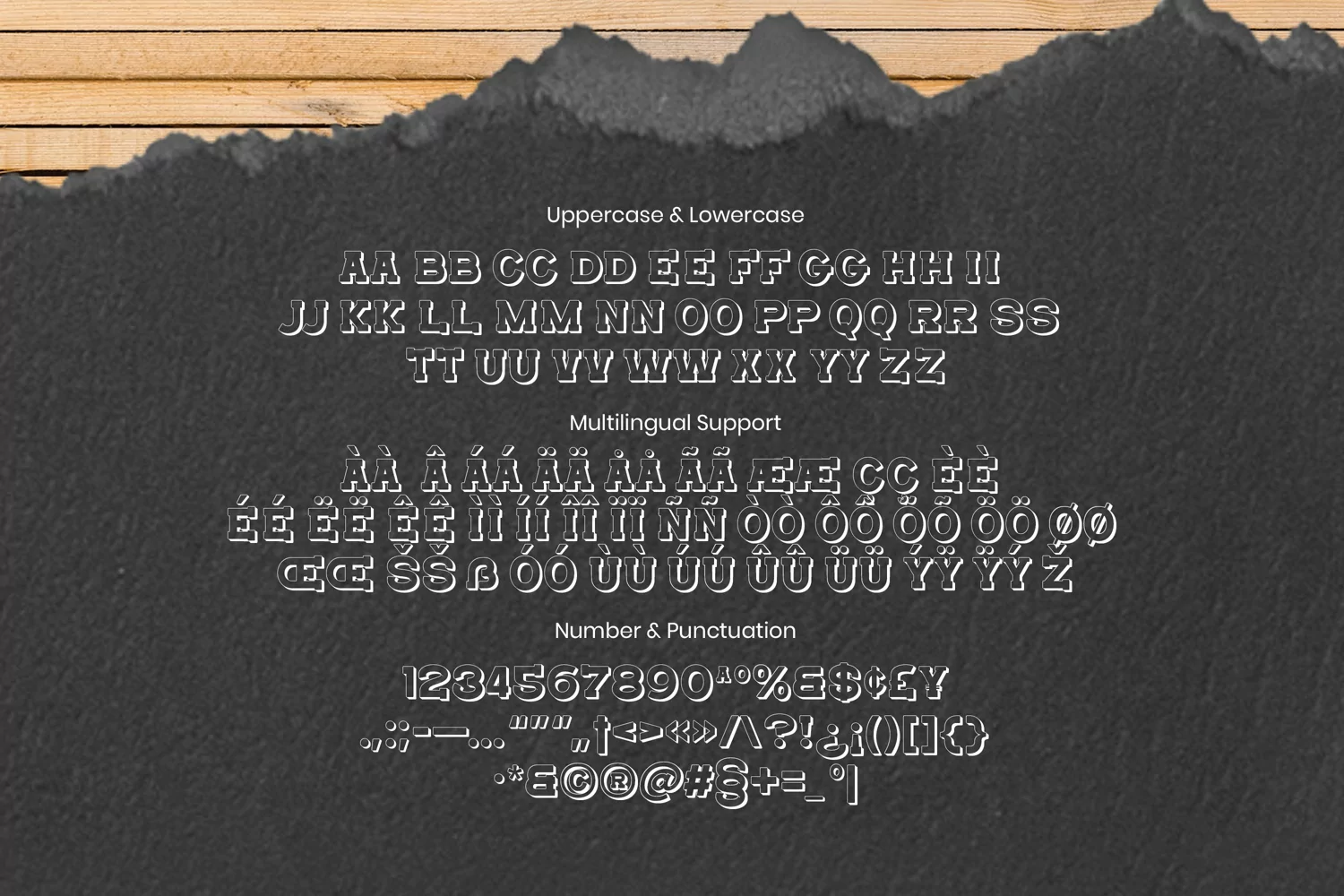
Suitable for some designs such as the logotype, brand, packaging, quotes, music poster, t-shirt, cover book and more custom design. The features uppercase, lowercase, numeral, punctuation & symbol, multilingual support.